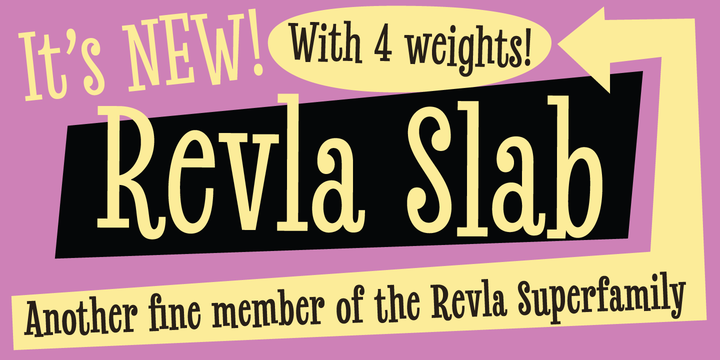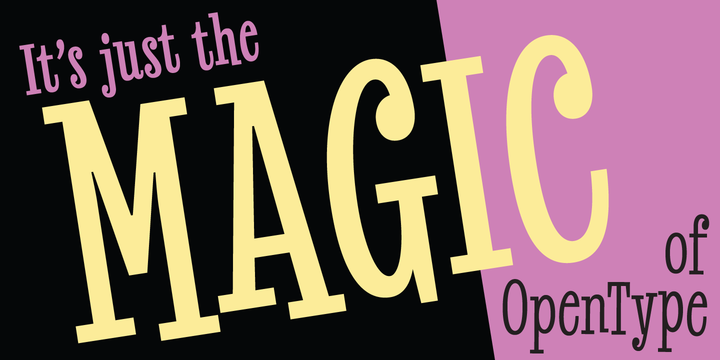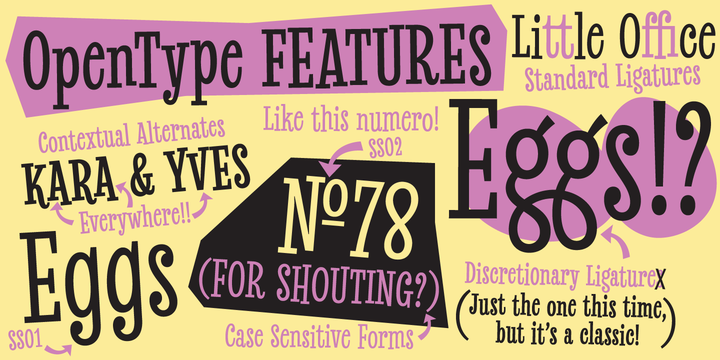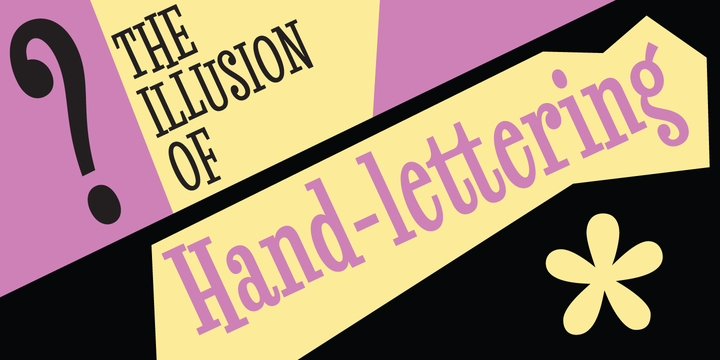
The Revla family just keeps expanding! This is Revla Slab. It has the same exuberant charm as its siblings (Revla Sans and Revla Serif) with a touch more chunk.
OpenType contextual alternates make for text that is lively and bouncy, without the monotony of obviously repeating letterforms.
More Its shamelessly fun, but pretty serious at the same time. The range of weights can be used to maintain an even colour across different sizes - use lighter weights for bigger sizes and vice versa.
OpenType features include automatic fractions, ordinals, contextual alternates (which along with the pseudo-randomness, help maintain a nice tight fit with minimal glyph collisions), standard and discretionary ligatures (OK, only one discretionary ligature, but its a belter!), and case-sensitve forms.
Obviously, in sharing a common skeleton, it will work well with other members of the Revla Superfamily, particularly Revla Sans.